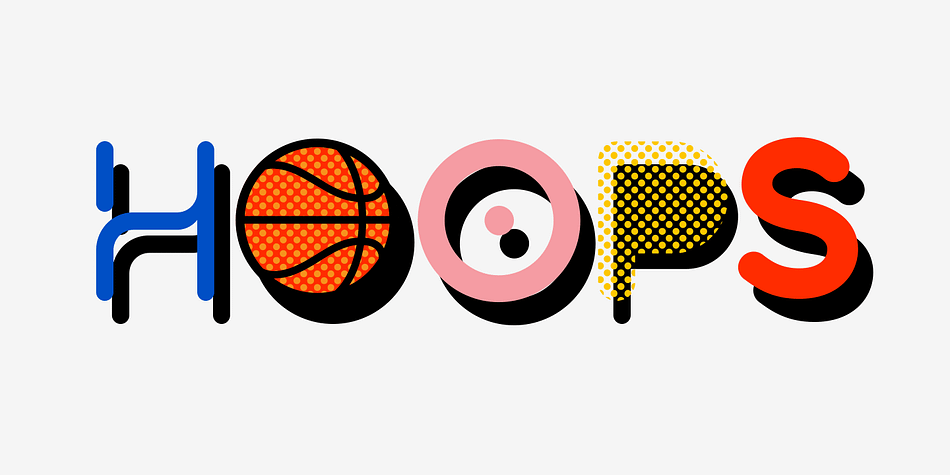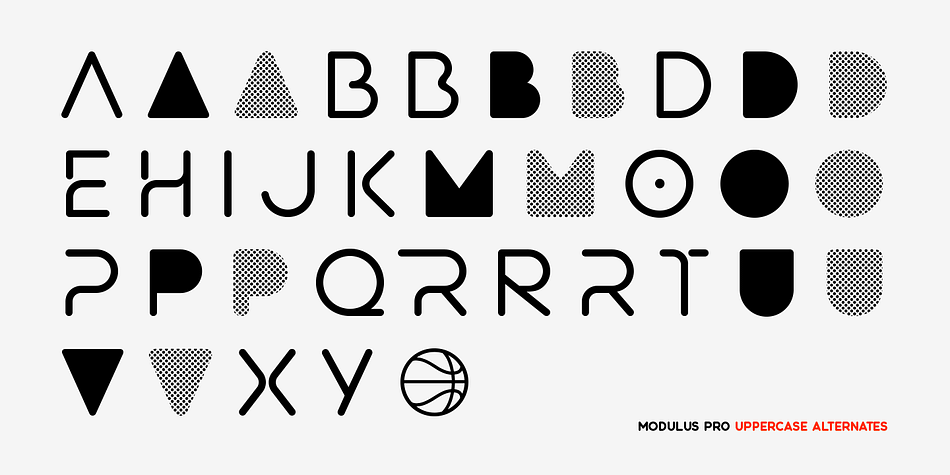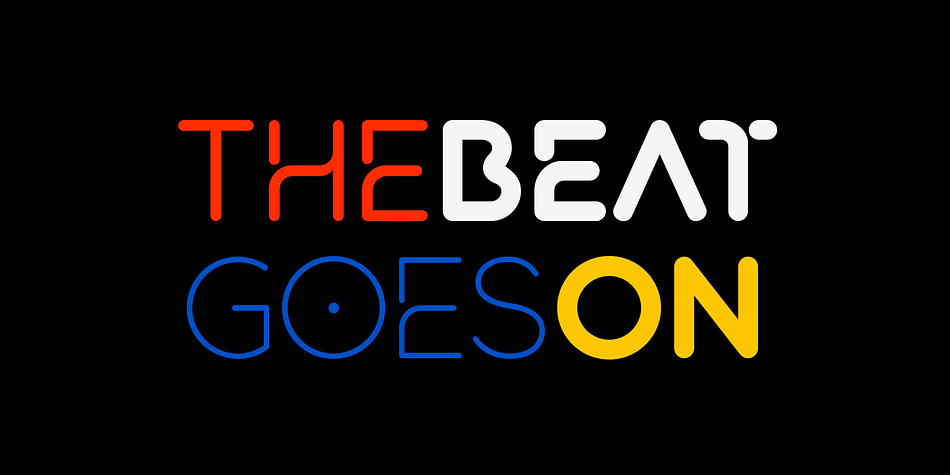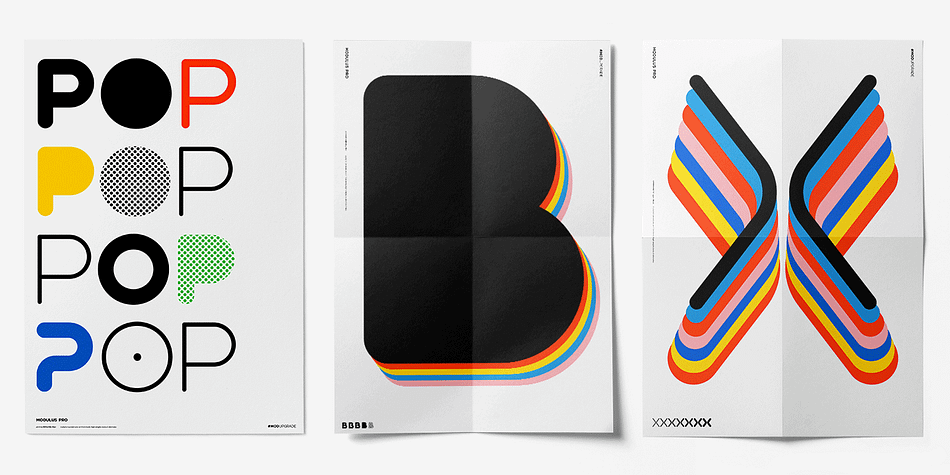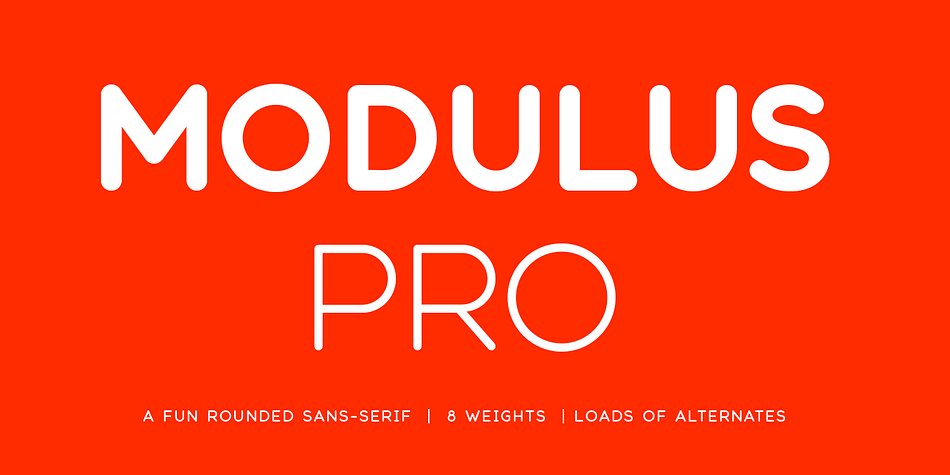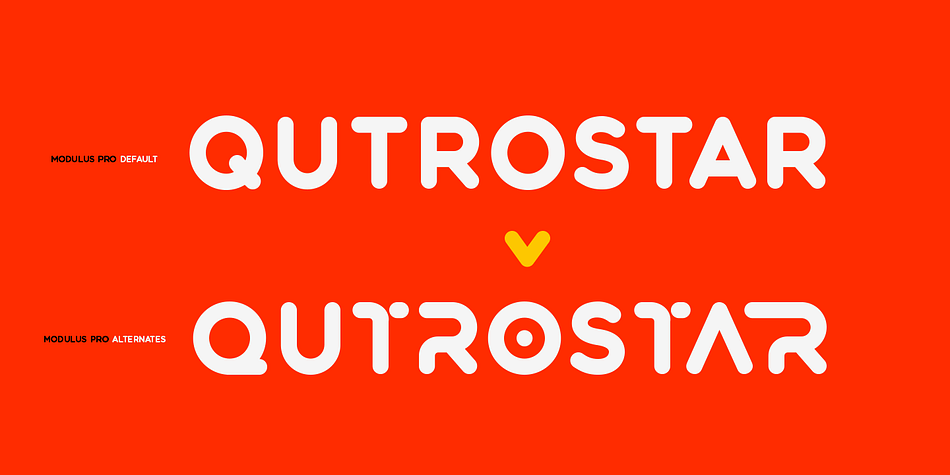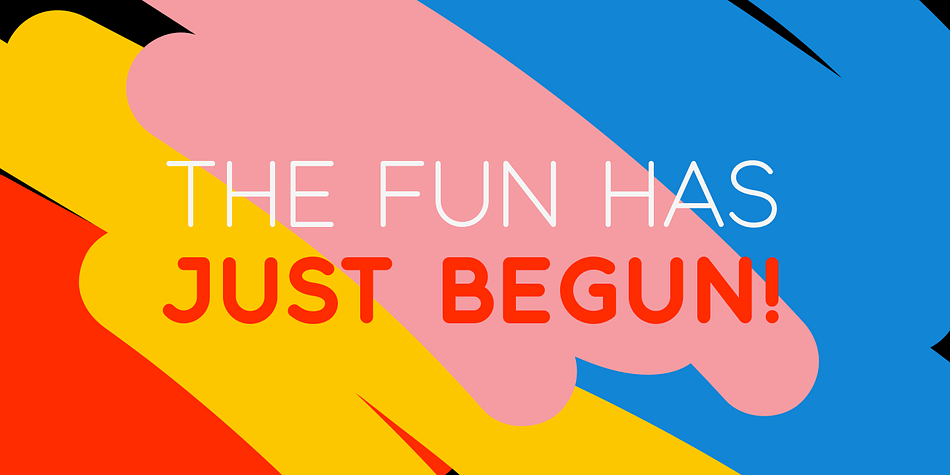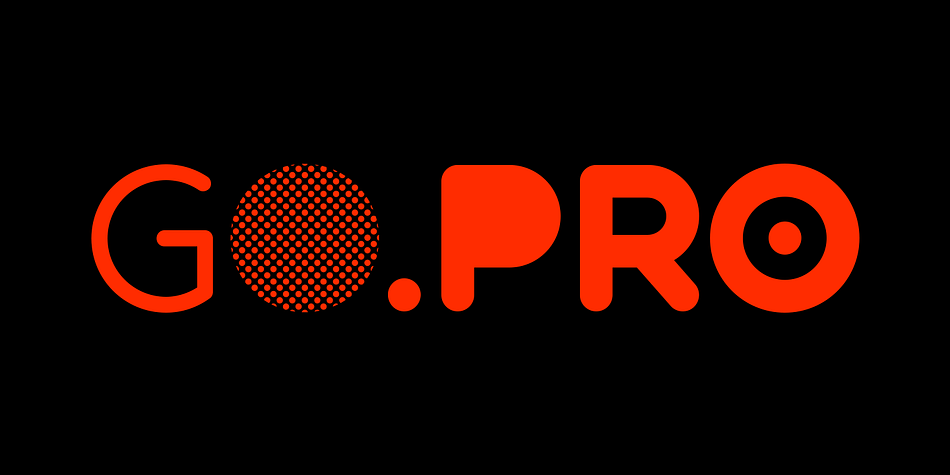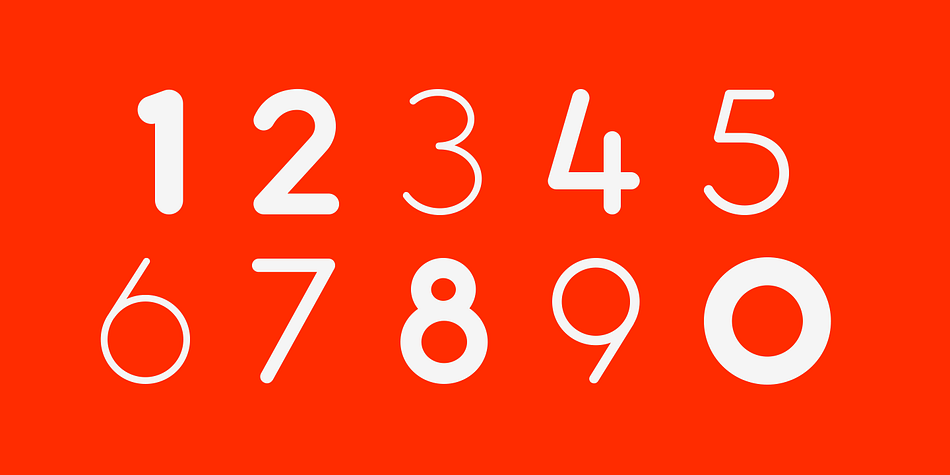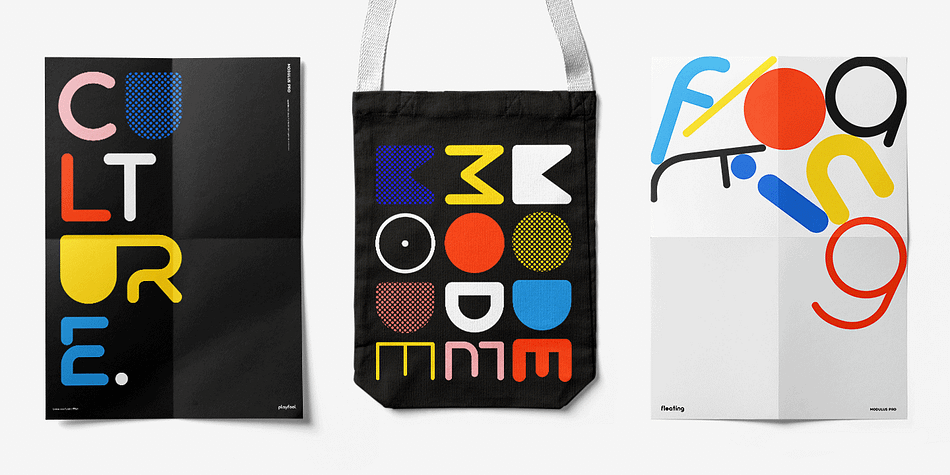
Designed by Andrew Footit, Modulus Pro is a sans serif font family. This typeface has eight styles and was published by Andrew Footit.
Modulus Pro, the extensive update to Modulus. This update was built around the original Modulus Font. This rounded sans-serif has a larger glyph set which covers many languages. Modulus Pro now comes in 8 weights from Extra-Light to Black.
This updated version was designed with the designer in mind, you have many stylistic alternates to get creative with and make some really cool customised typography. A large range of examples have been designed to show just how versatile and creative you can get with this font family.
It’s fun but has a cool, edginess to it at the same time. Modulus Pro is not just another rounded sans-serif, you are going to want this in your font list.